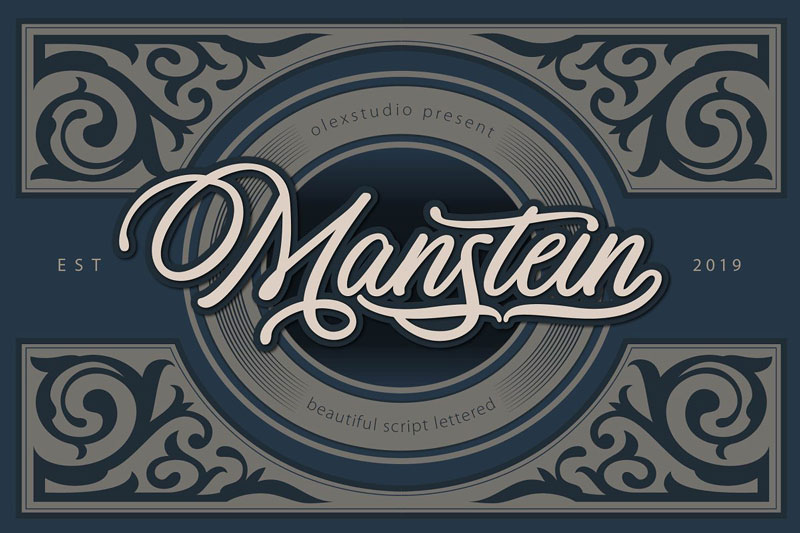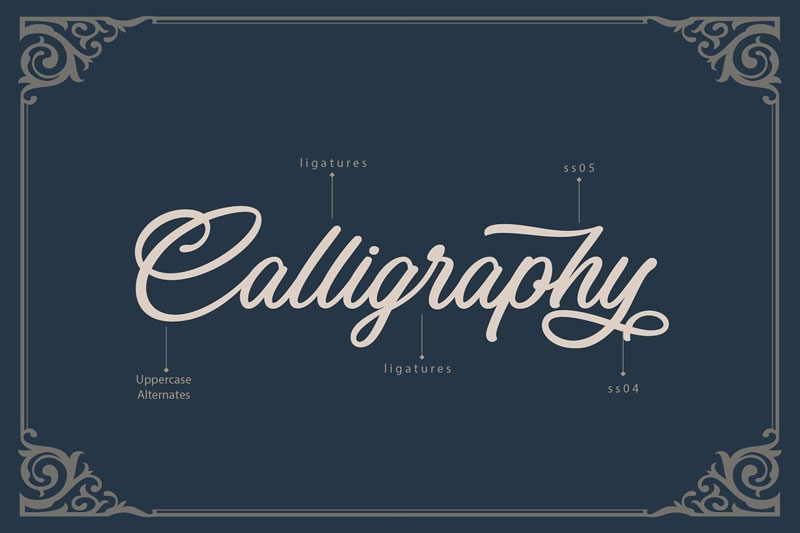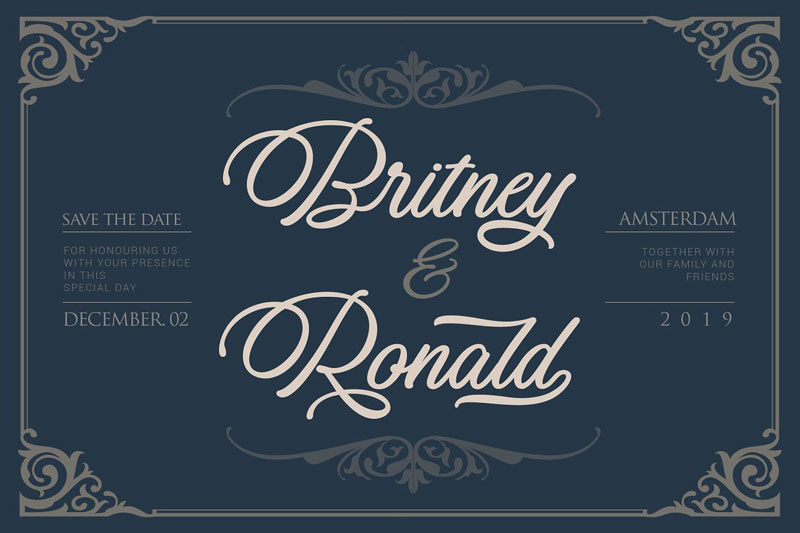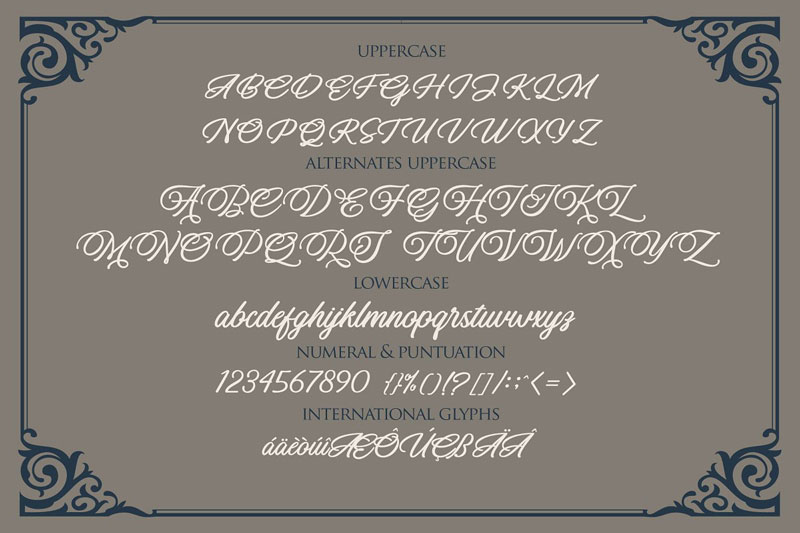
Manstein font is a beautiful Script font, This Font will look gorgeous on all your designs, invitation, book, branding materials, logo’s, t-shirt, poster, and all project design other.
Manstein contains standard characters, lowercase & Uppercase, Uppercase Alternates, numbers, punctuation, ligatures, and international glyphs. You will receive OTF, TTF and WEBFONT files.
• Designer: Olexstudio